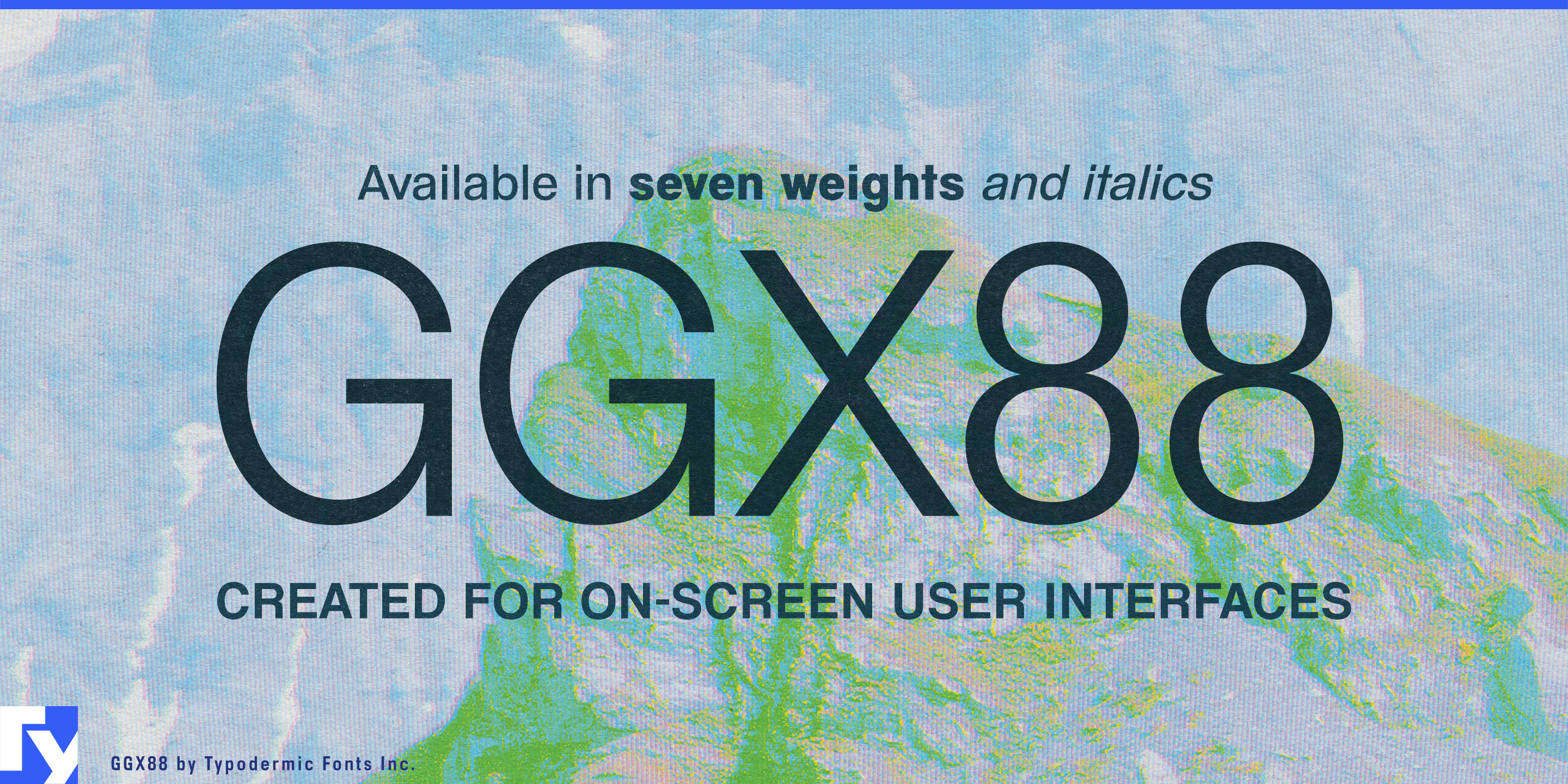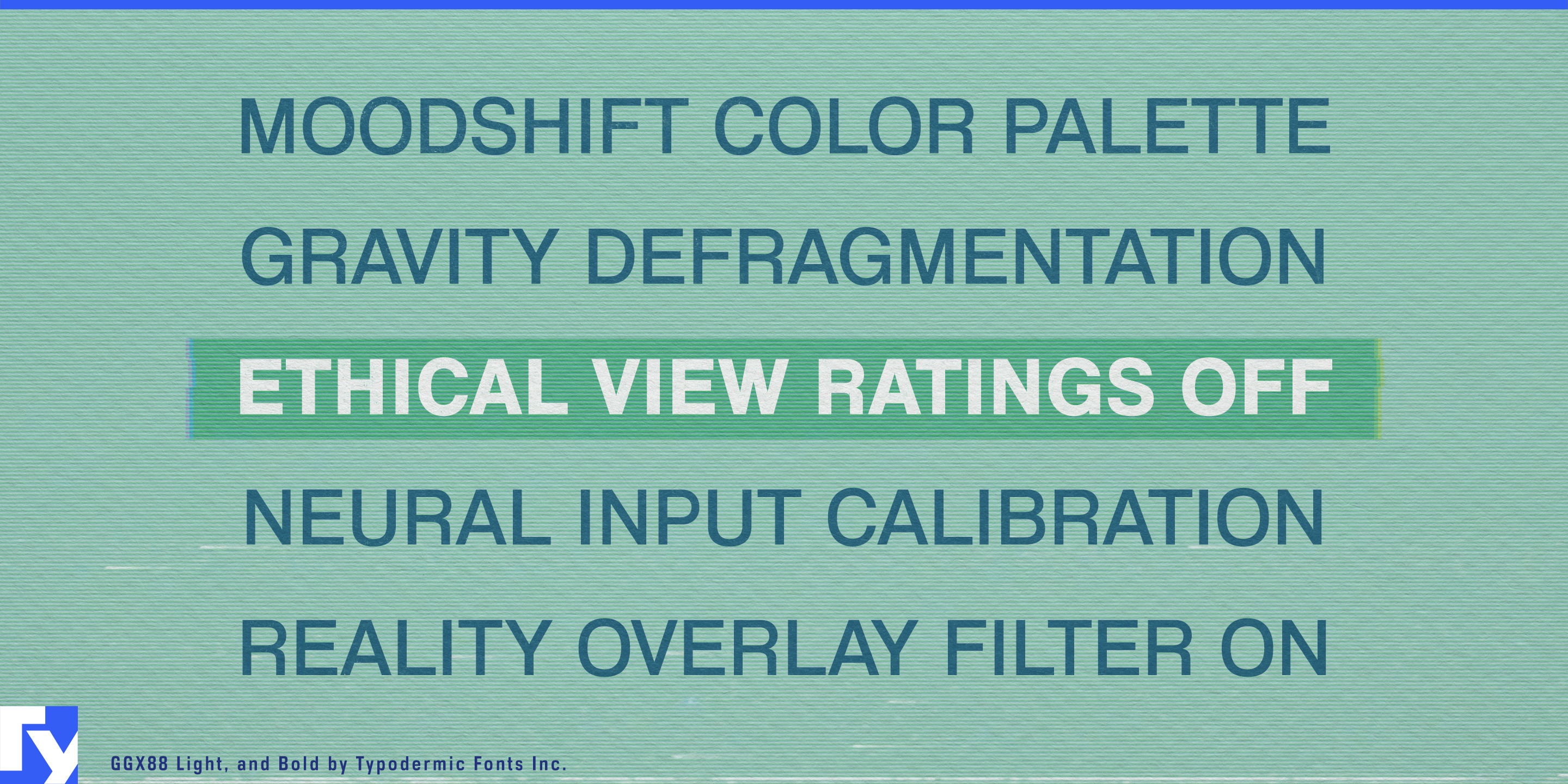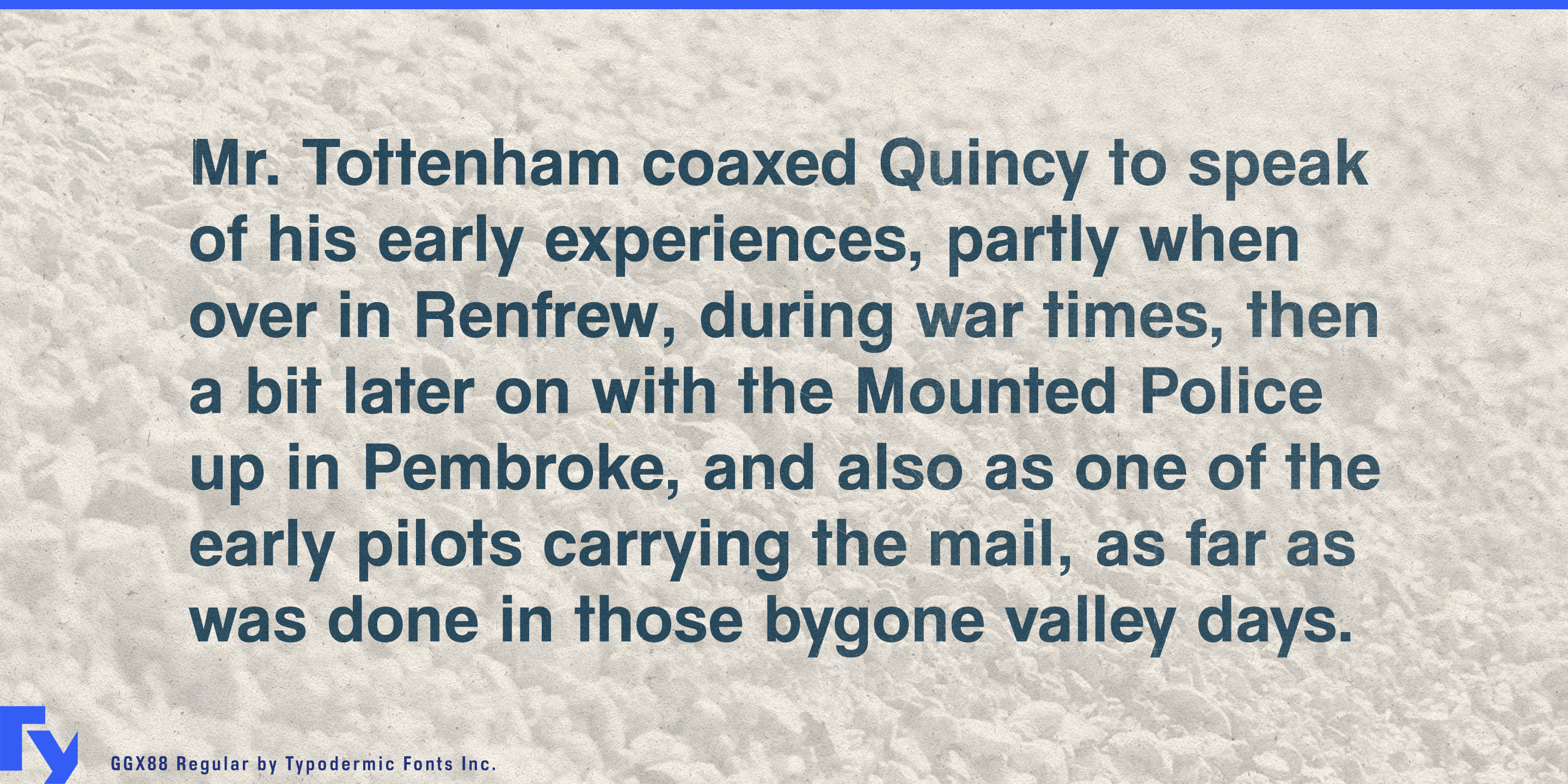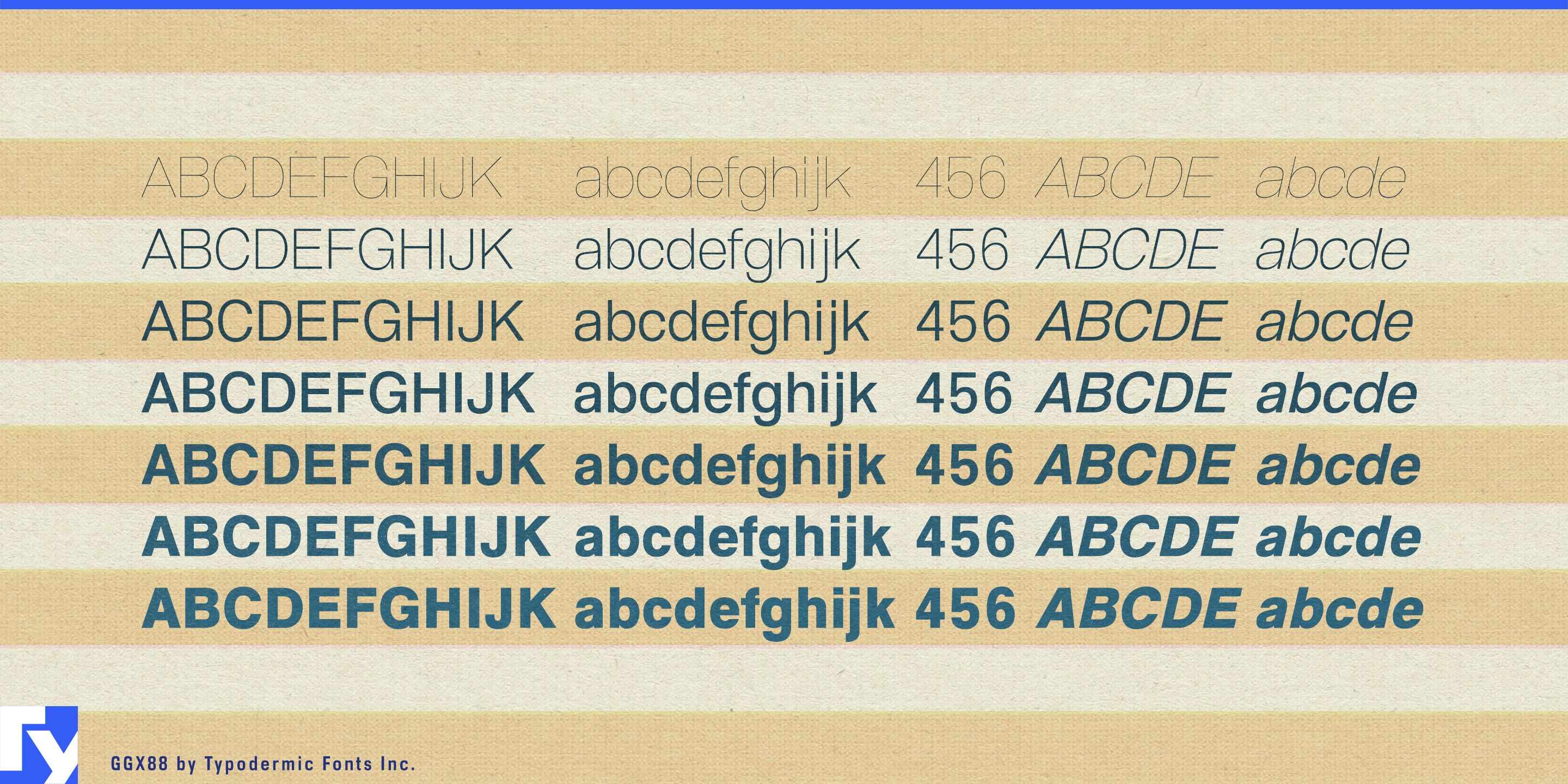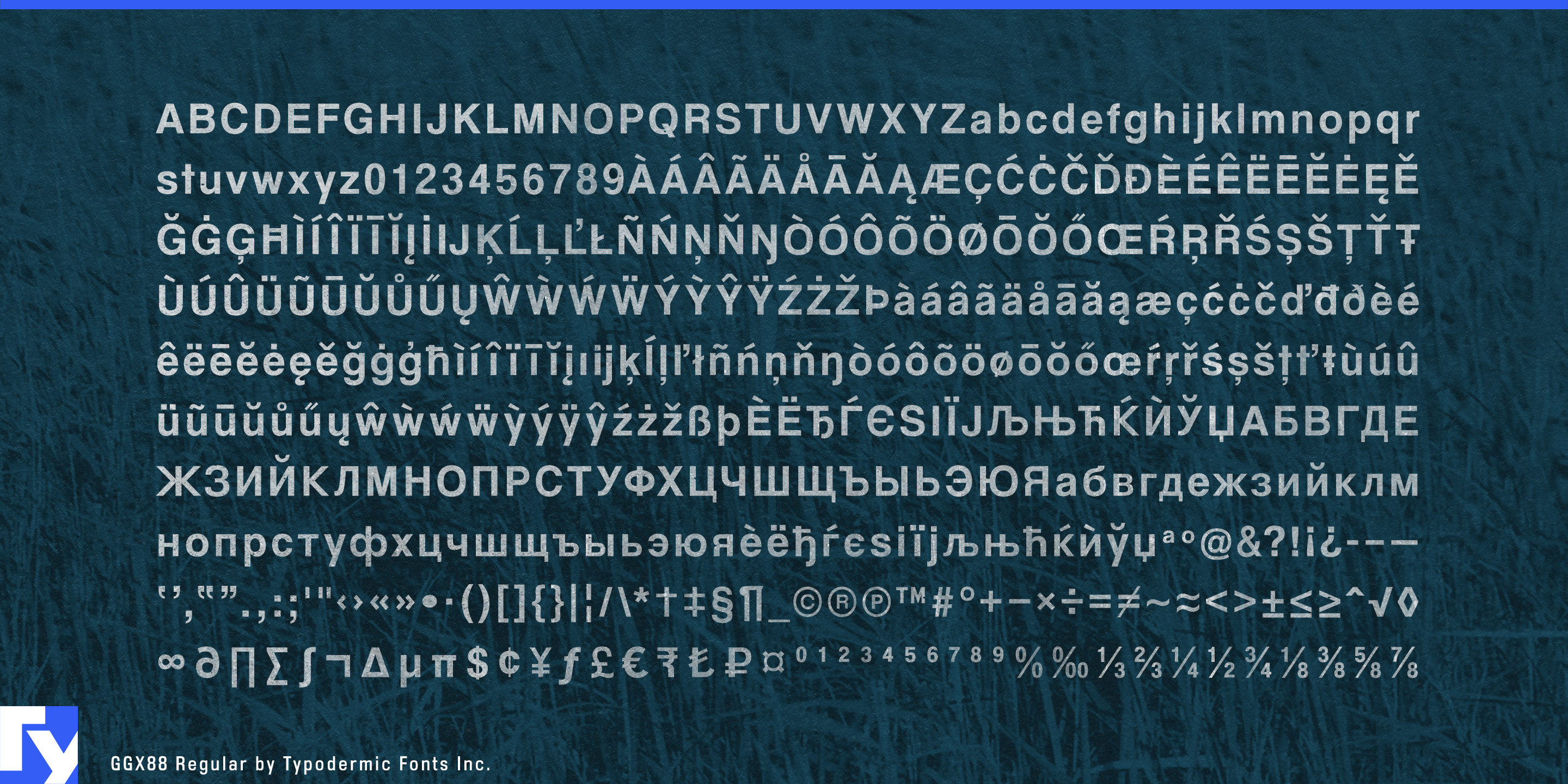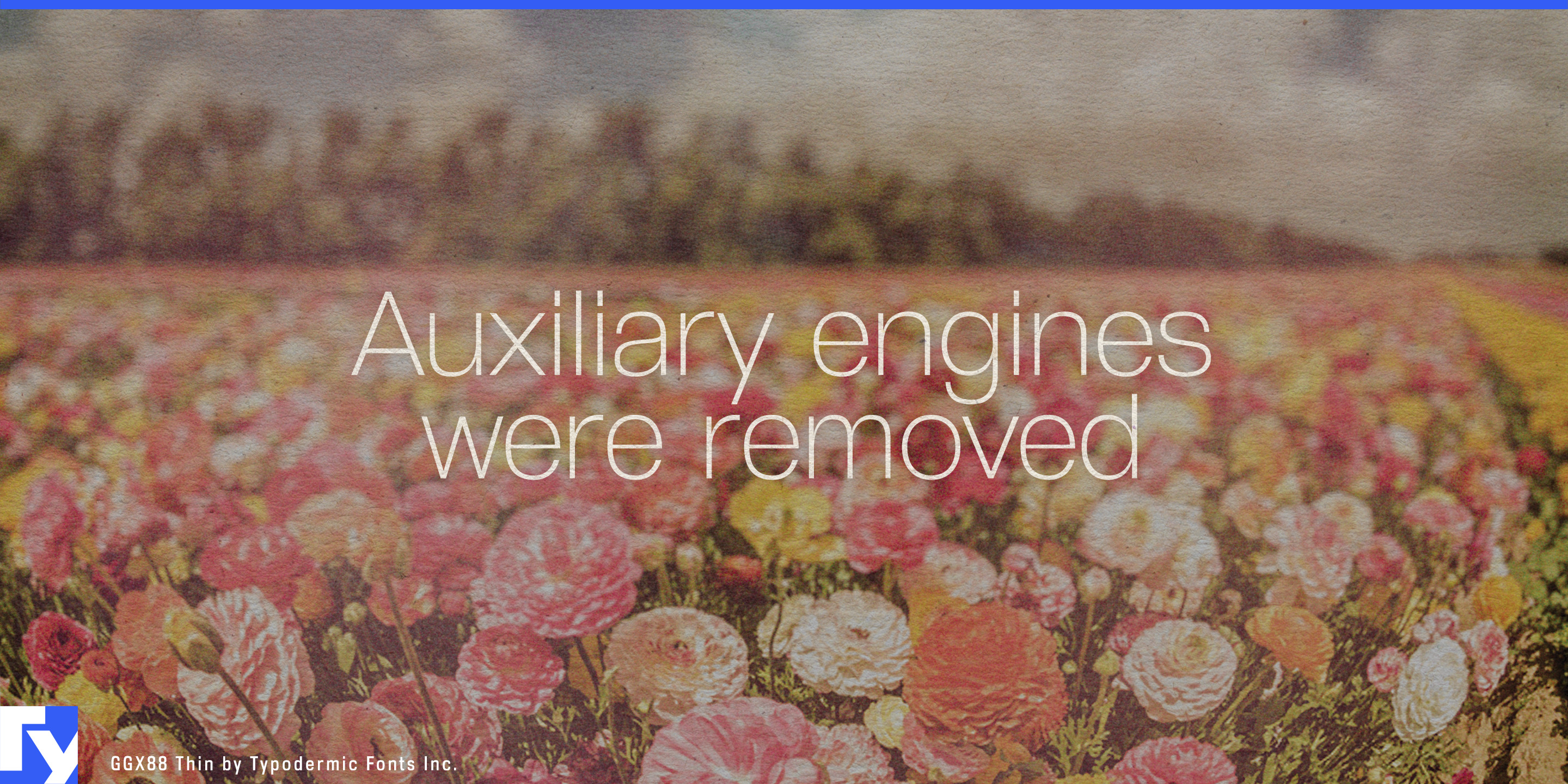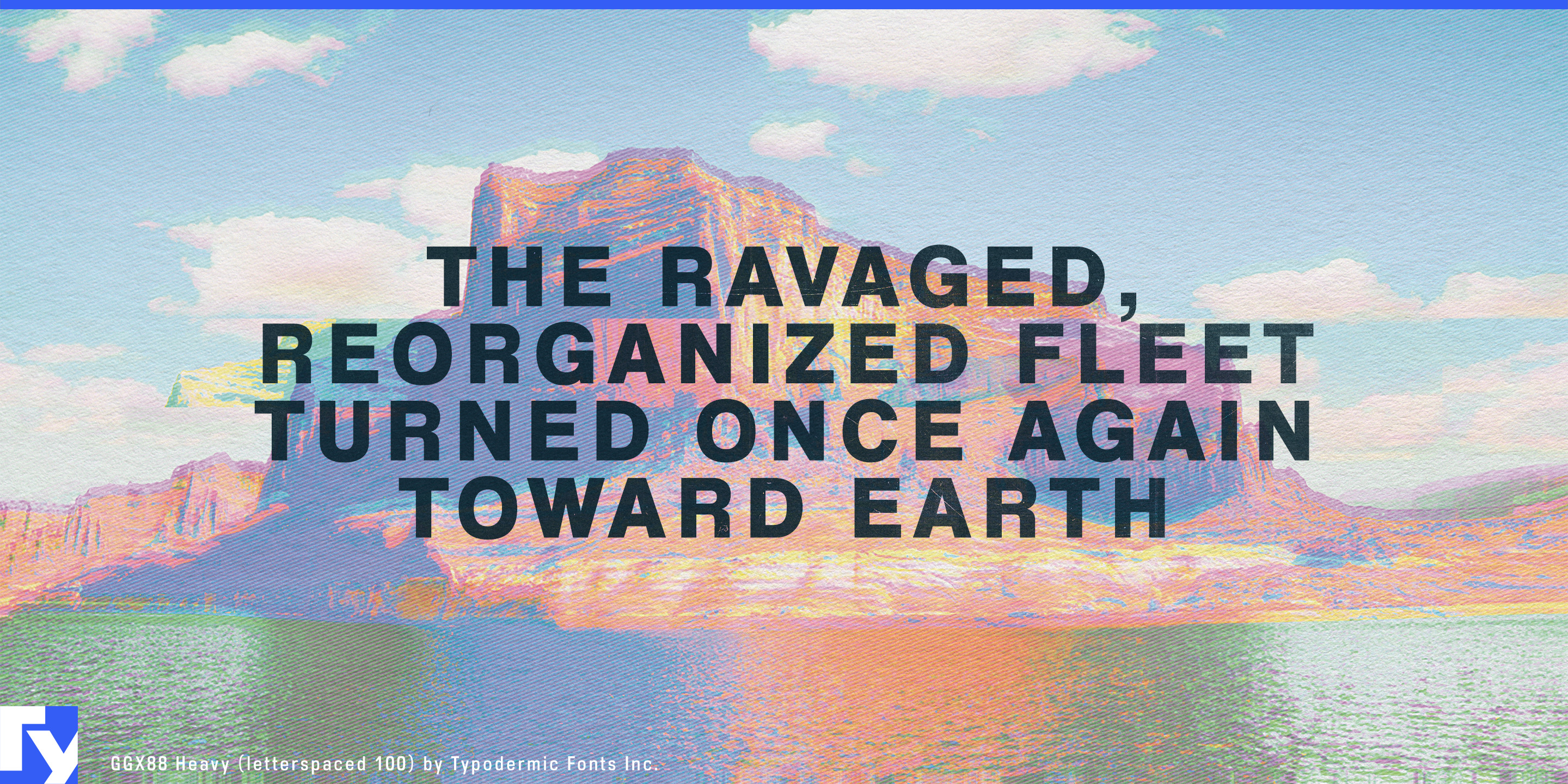
Ggx88
Most interface typography is designed for screens you hold or sit close to. Television and other shared-screen interfaces have a different problem: the viewer may be several meters away, scanning menus, imagery and moving content. Tight spacing and delicate details that look polished on a laptop can become cramped or indistinct from the couch.
Ggx88 was designed for exactly that environment. It began as a Swiss-style sans for a streaming set-top box, with generous spacing, simplified forms and proportions adjusted for television viewing. The original rasterization constraints have long since changed, but the resulting design remains useful: neutral interface typography with enough breathing room to work at a distance.
Streaming television is its most direct application. Subscription video services, FAST channels, broadcaster apps and sports-streaming platforms need browse screens, episode information, channel guides, playback overlays and profile menus that can be scanned quickly without competing with cover art or video. Ggx88 keeps that typography calm and familiar while its open rhythm helps titles, categories and supporting information remain distinct across a large screen.
Console and cloud-gaming platforms face much the same problem. Game libraries, subscription services and living-room launchers are filled with cover art, titles, achievement notices and settings. Ggx88 works as the interface around the games rather than trying to look like one.
Hotel-room television, resort entertainment systems and cruise-cabin media add guest services, restaurant listings, property information and channel guides to the same across-the-room viewing condition. Large-screen fitness systems use similar typography for class names, timers, exercise labels and interval notices that must remain readable while the user is moving.
The same principles extend to information-rich digital signage such as cinema program boards, conference schedules, visitor-center displays and museum media screens, as well as broadcast graphics that need to sit quietly over photography and moving imagery.
Ggx88 was built for text viewed from across the room rather than across a desk. The technology around that original brief has changed; the viewing distance has not.